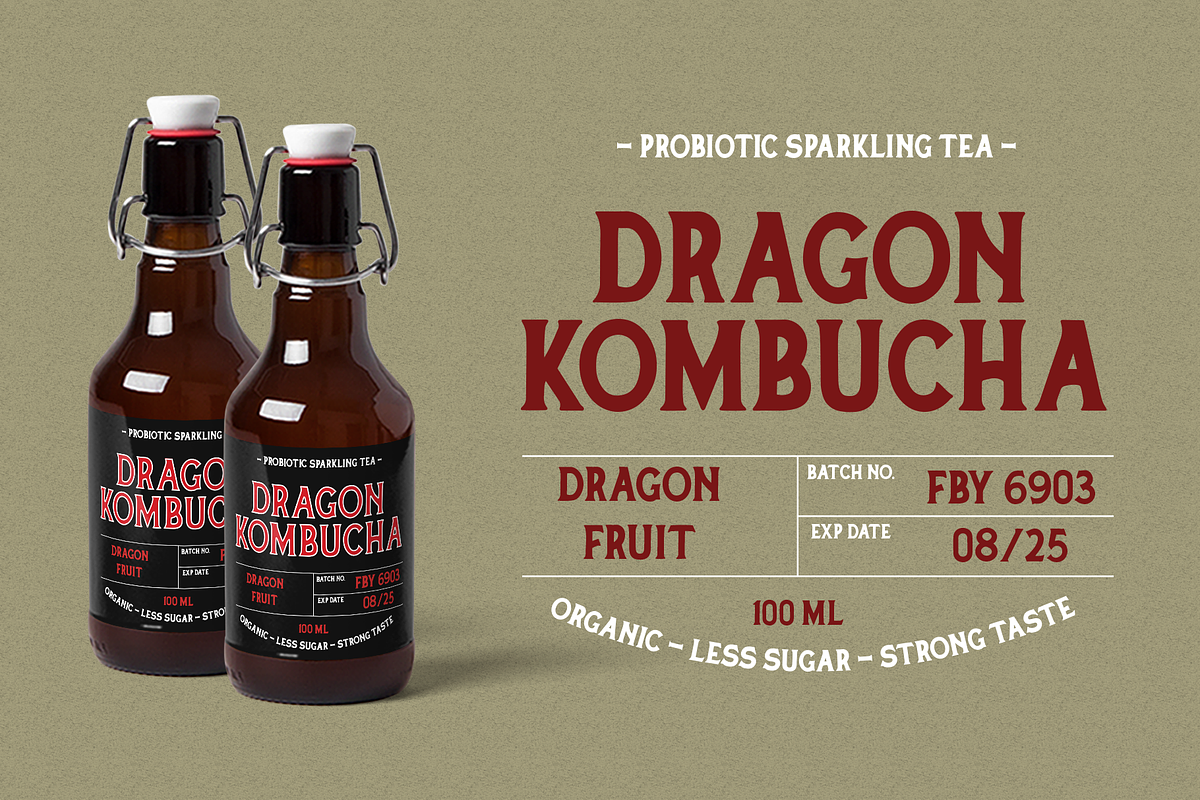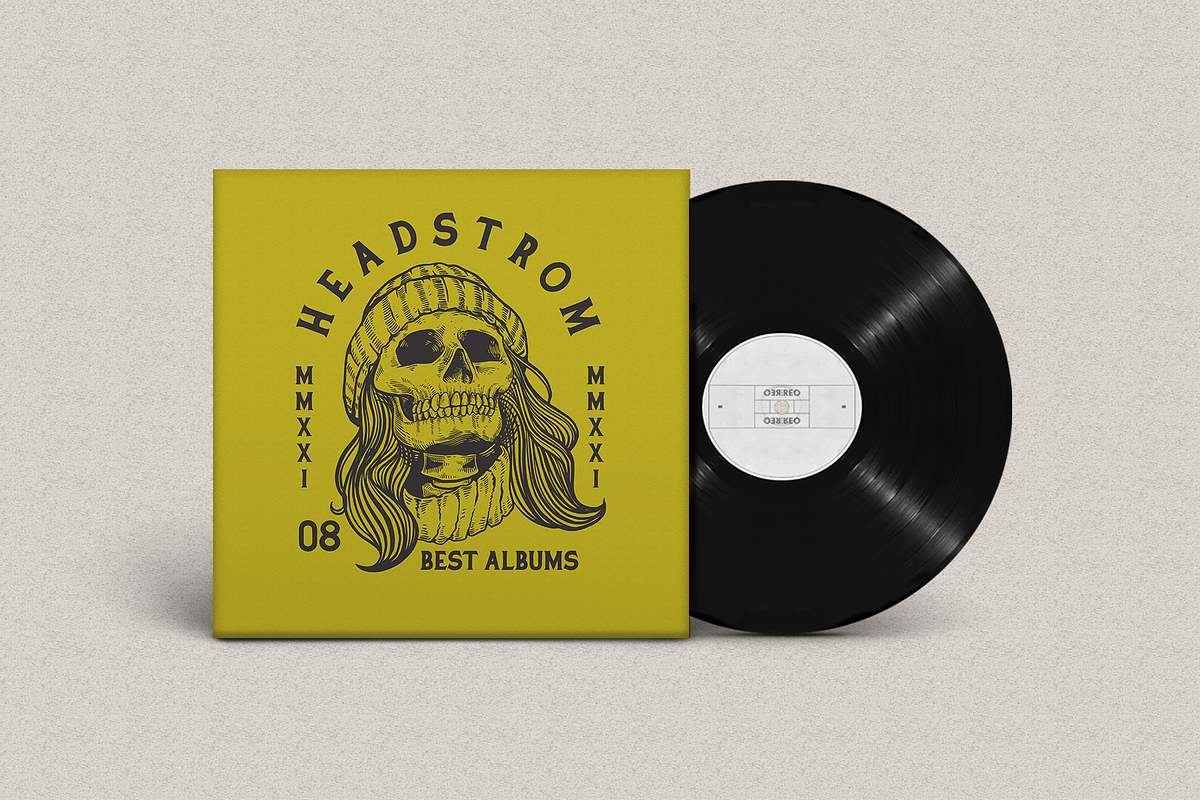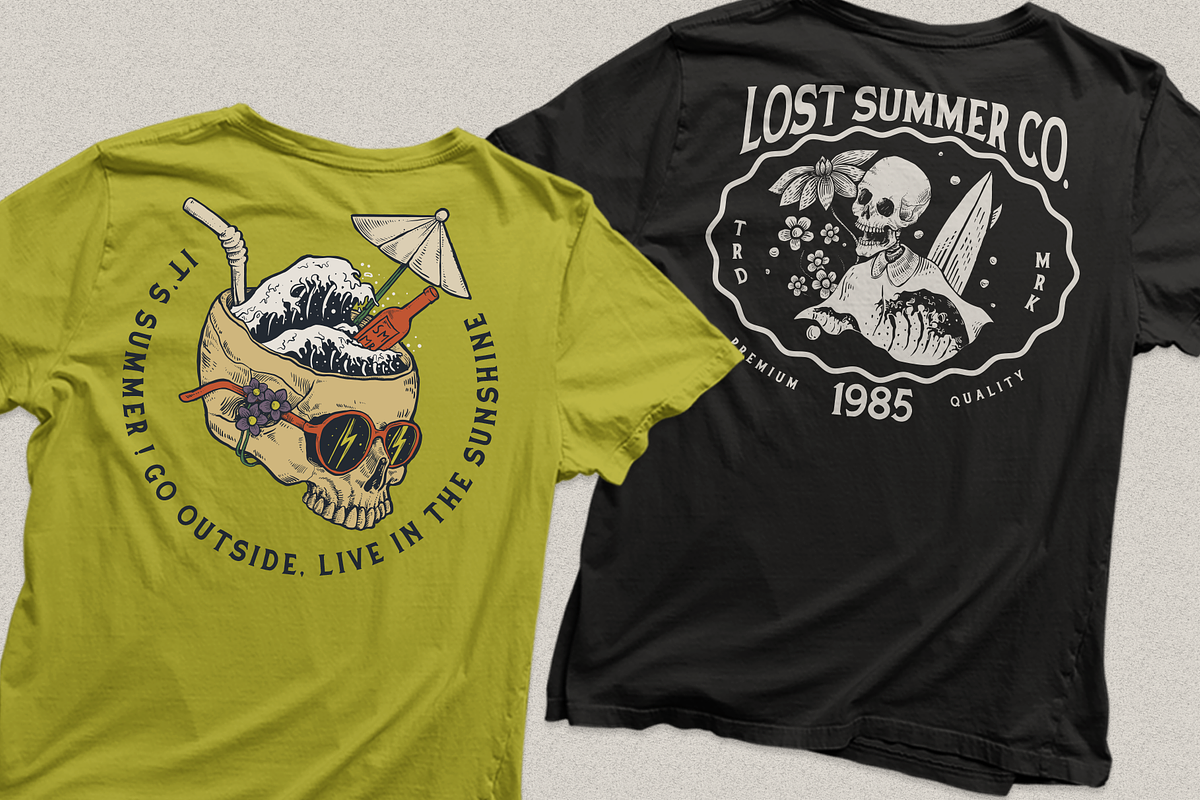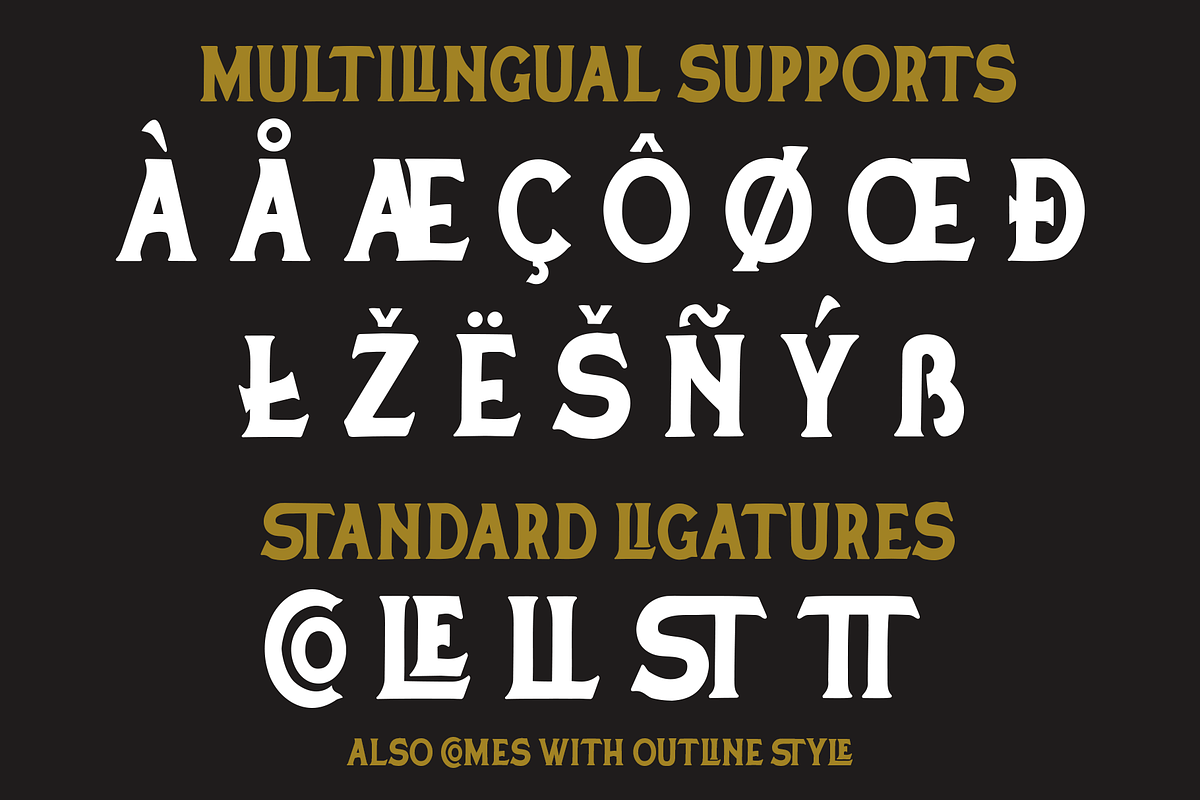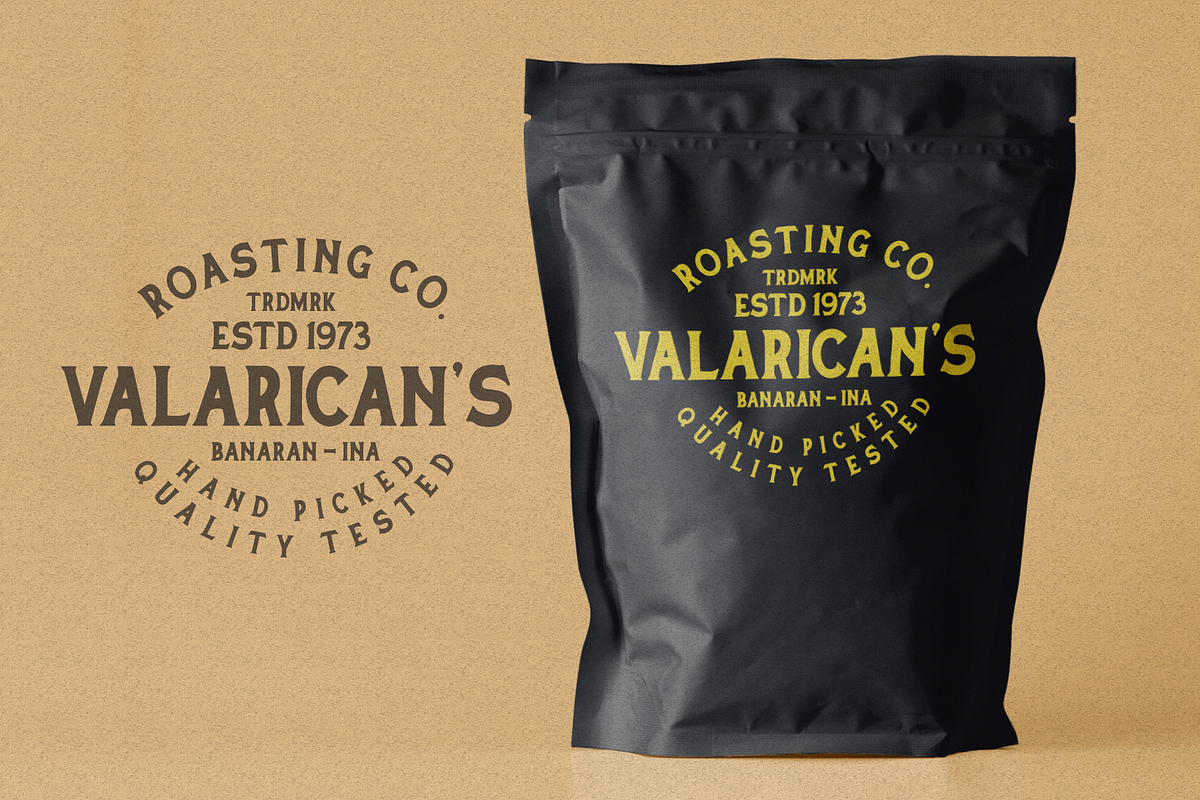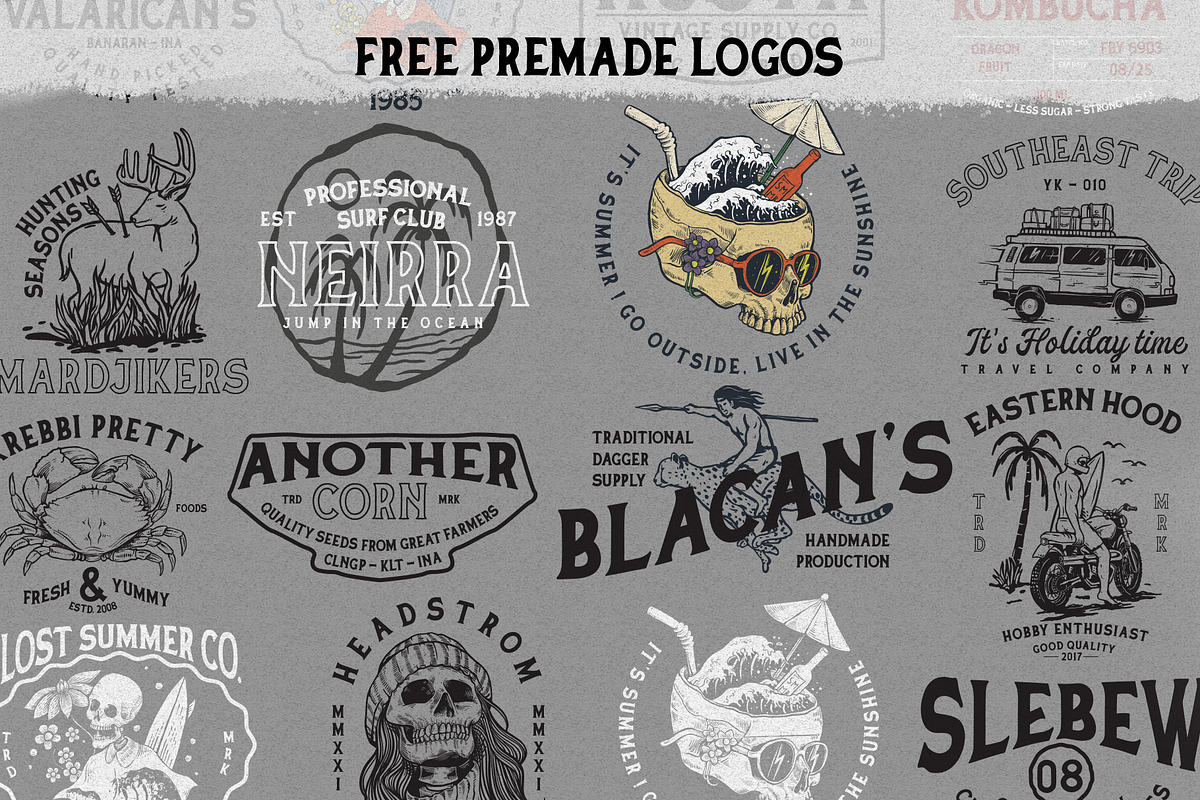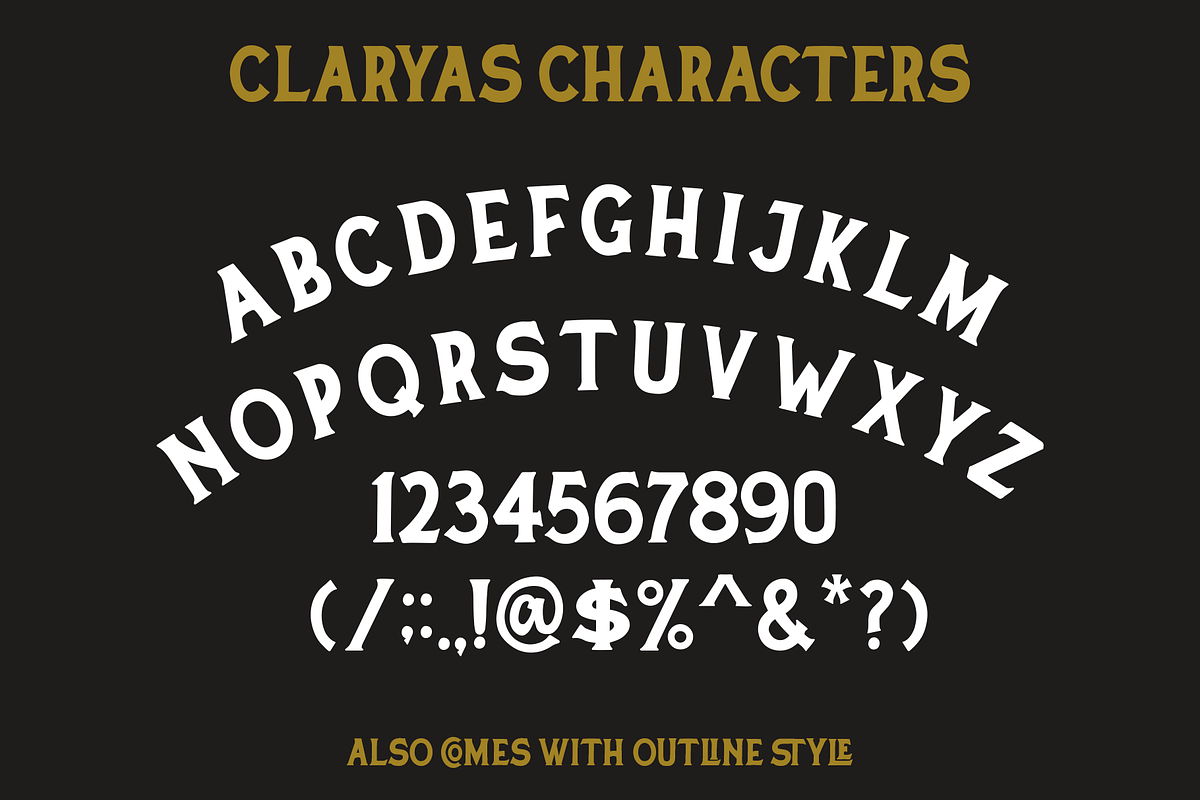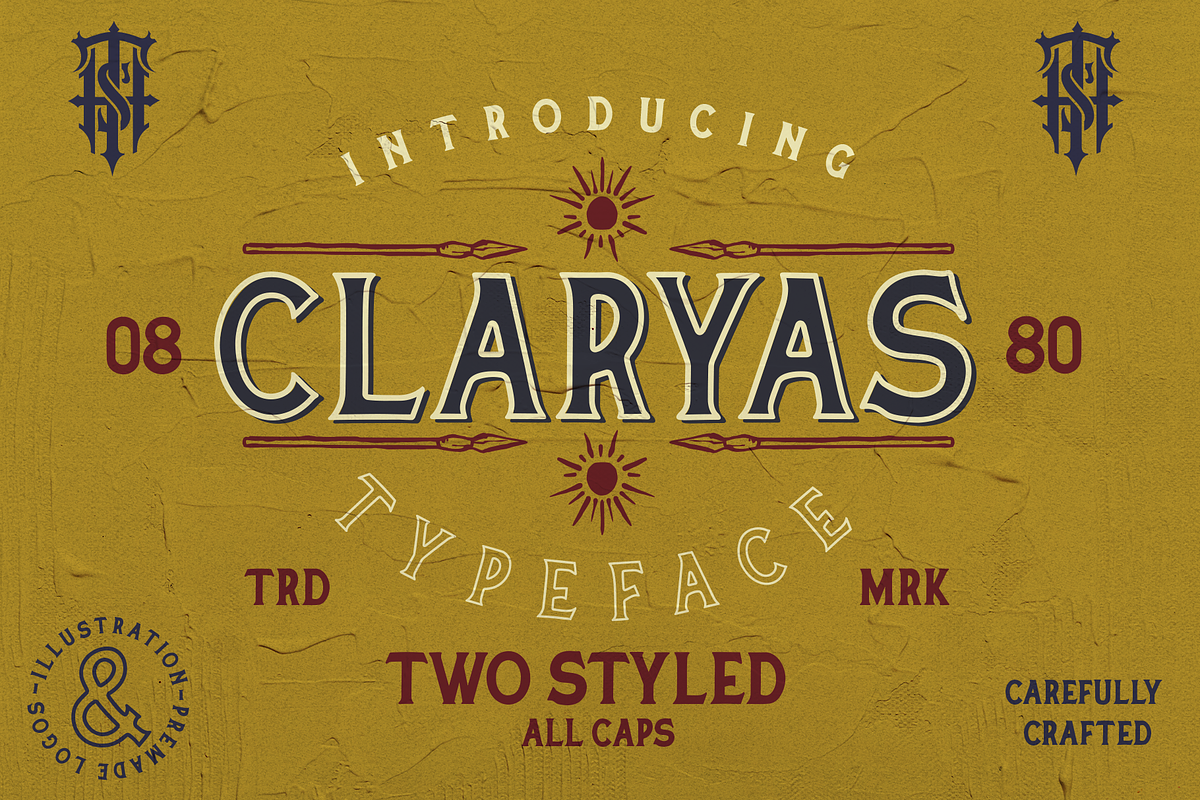
Claryas + Extras
Claryas is a handdrawn typeface. Claryas comes with classic and vintage impression. This font is an all caps font and also comes with outline style, illustrations, and premade logos. Claryas perfect for display such as branding, logo, t-shirt, packaging, labels, poster, quote .etc